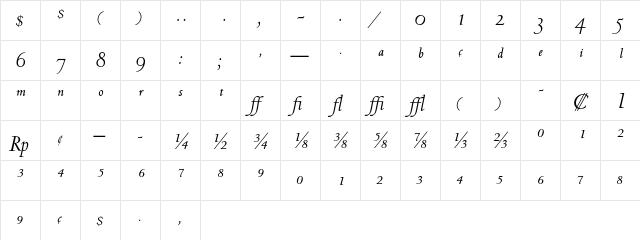
Centaur MT Italic Expert
Design Context for Centaur MT Typeface
Centaur MT is a composed and adaptable typeface that performs quietly and consistently across a wide range of design contexts. The dynamic lean of this cut emphasises speed and emphasis in any layout.
Pro Tip: Use Centaur MT for emphasis, pull quotes, and subheadings where its slanted energy can add rhythm to the layout.